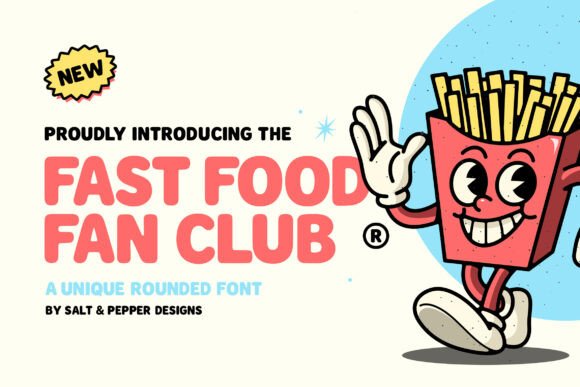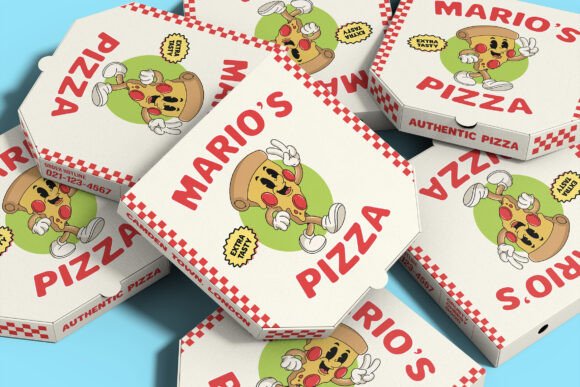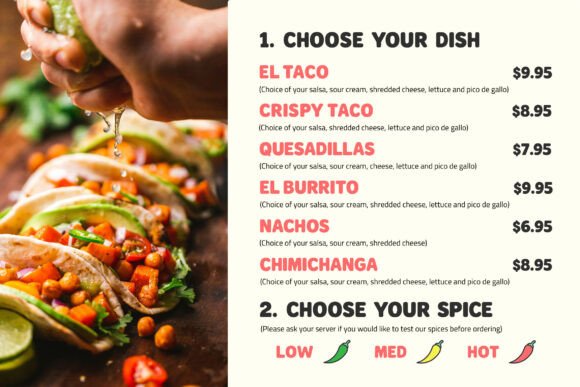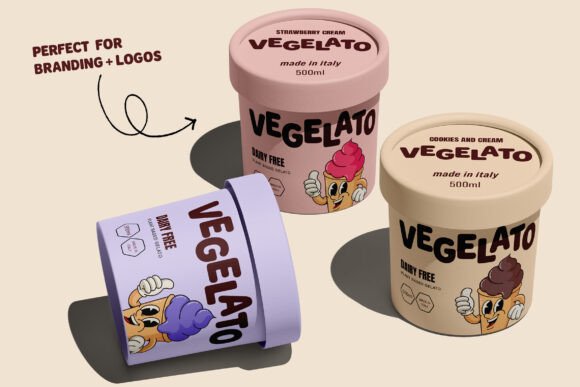
Fast Food Fan Club Font
About the Fast Food Fan Club Font
Step up your design game with Fast Food Fan Club Font, a font that exudes confidence and style. Fast Food Fan Club is a bold, rounded display font packed with personality. With its bubbly curves and playful style, this font is perfect for food branding, children’s products, retro packaging, and eye-catching headlines. Whether you’re crafting a fun logo or a nostalgic menu design, this font delivers with charm and flavor.
Its bold, rounded forms make it ideal for headlines, short slogans, and packaging designs requiring a playful yet approachable aesthetic. However, its low x-height and condensed letterforms make it unsuitable for extended body text or UI elements where readability is paramount.
Fast Food Fan Club Font projects a friendly, nostalgic, and slightly retro personality. It works best for brands targeting younger demographics or those with a playful, approachable image – think ice cream parlors, burger joints, or children’s entertainment.
Pairing it with a clean sans-serif like Open Sans for body copy provides excellent contrast and readability. For a more vintage feel, consider pairing it with a classic serif like Garamond. Alternatively, a geometric sans-serif such as Futura can add a modern edge.
Fast Food Fan Club Font Example